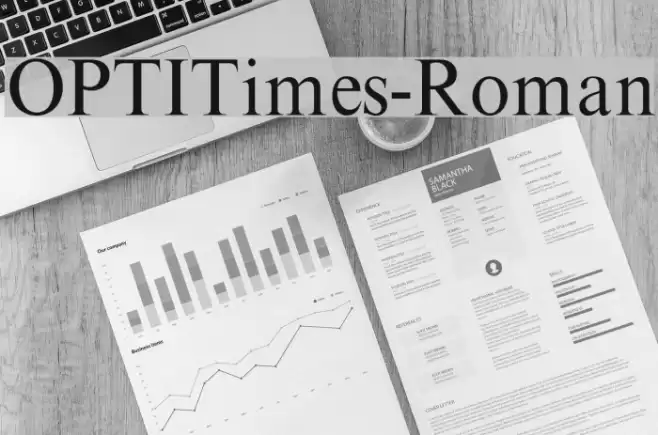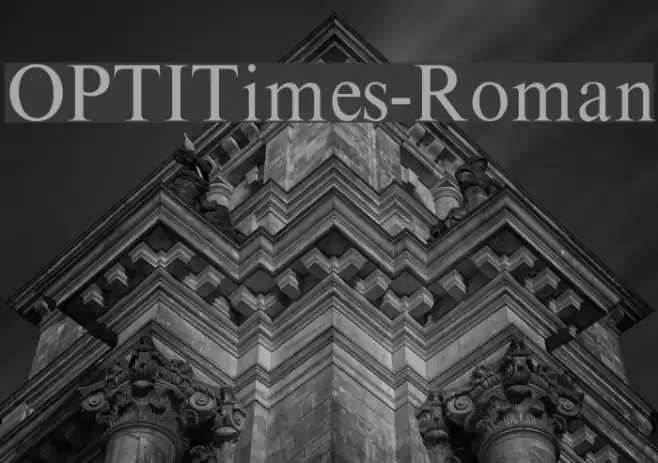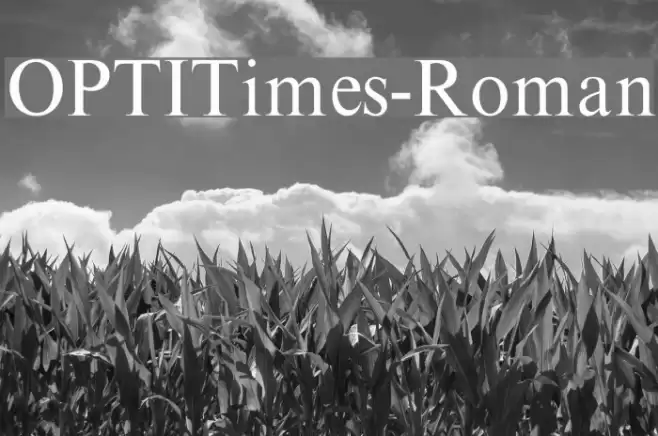
OPTITimes-Roman Font
OPTITimes-Roman Description
This typeface is a classic serif font characterized by its elegant and timeless design. The letters feature distinct serifs that enhance readability and provide a traditional aesthetic. The uppercase letters are well-proportioned and balanced, while the lowercase letters maintain a consistent x-height, contributing to a harmonious appearance. The numerals are clear and legible, making them suitable for both text and display purposes. The special characters are thoughtfully designed, ensuring they integrate seamlessly with the rest of the typeface. Overall, this font exudes a sense of sophistication and professionalism.
A classic serif font with elegant, well-proportioned characters and distinct serifs from Uncategorized fonts.
- Proposed Projects: Ideal for editorial design, book publishing, formal invitations, and corporate branding.
- Overall Style: Classic
- Use Case: Body text, Headlines, Editorial design